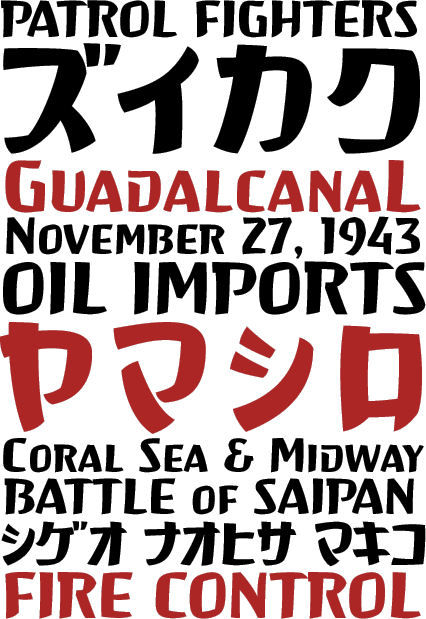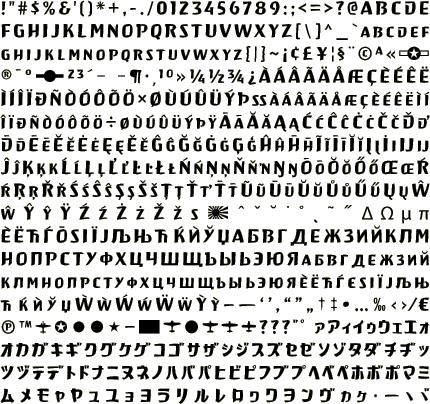
hayate
Hayate (ha-ya-teh) is a pseudohistorical, faux Asian font commissioned for a WWII Pacific Air War videogame. Also check out Marianas: the other half of the equation.